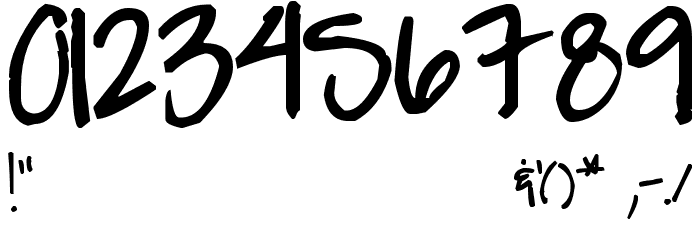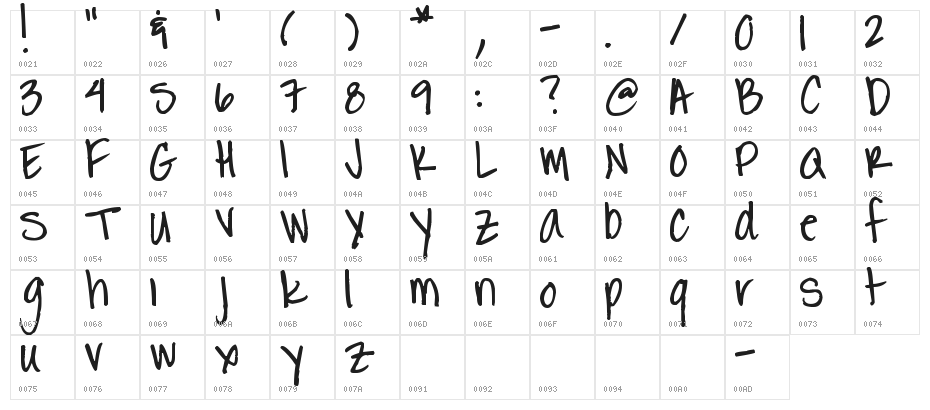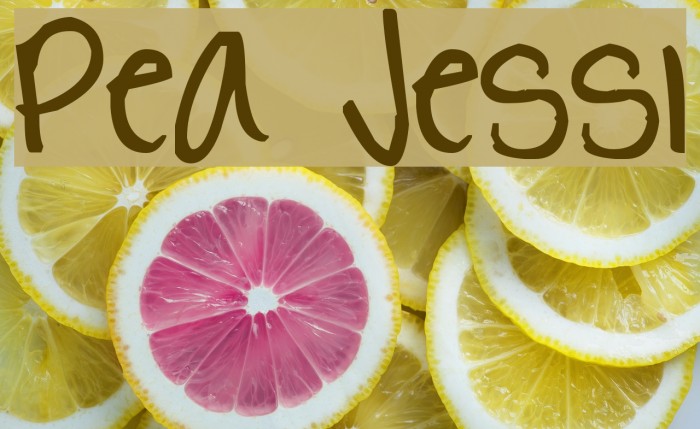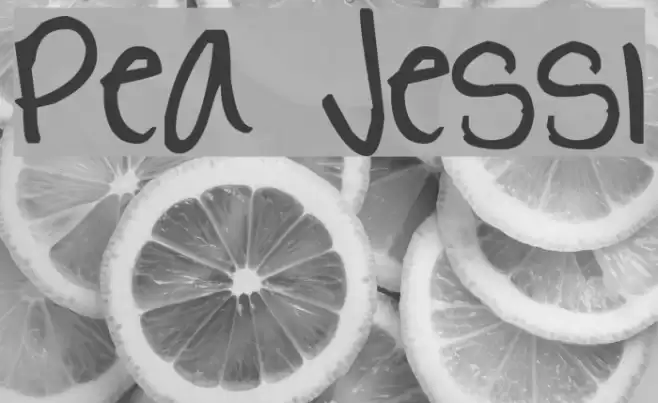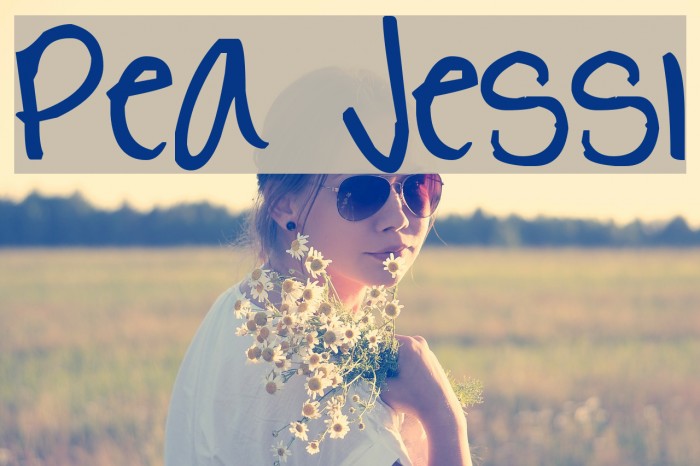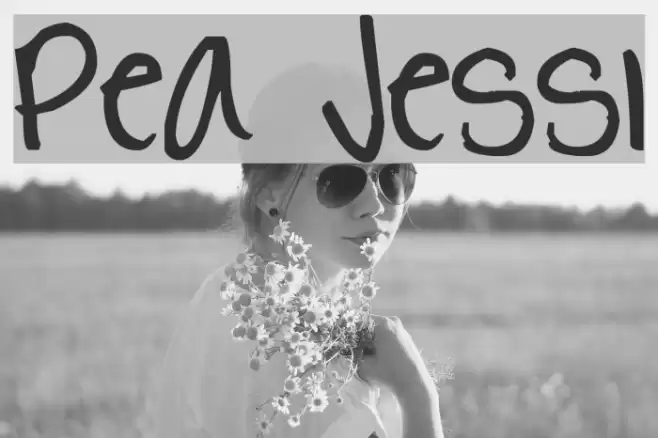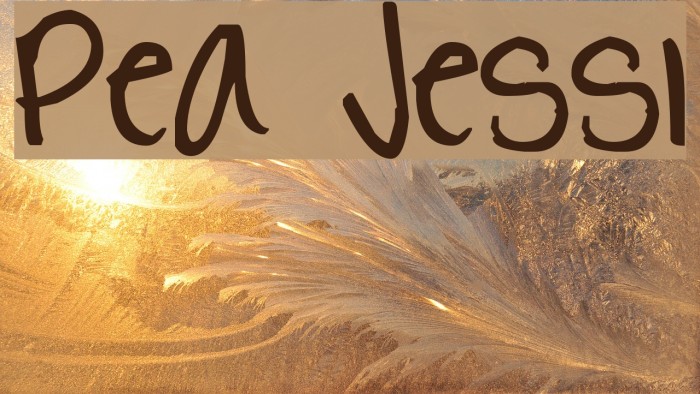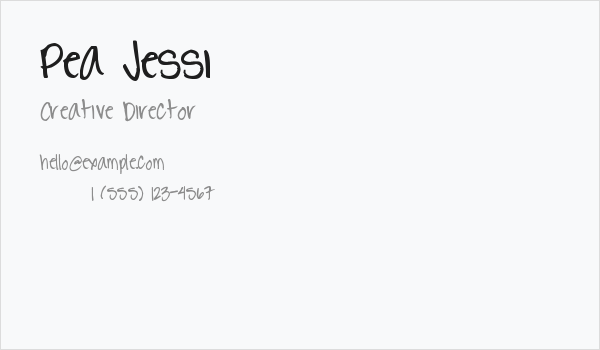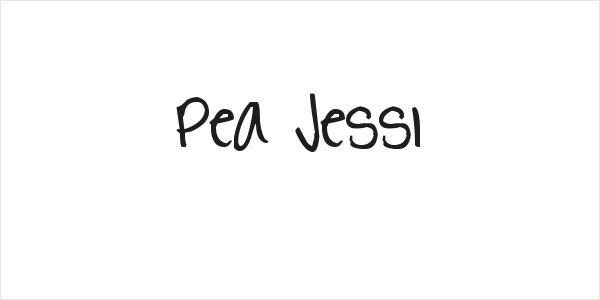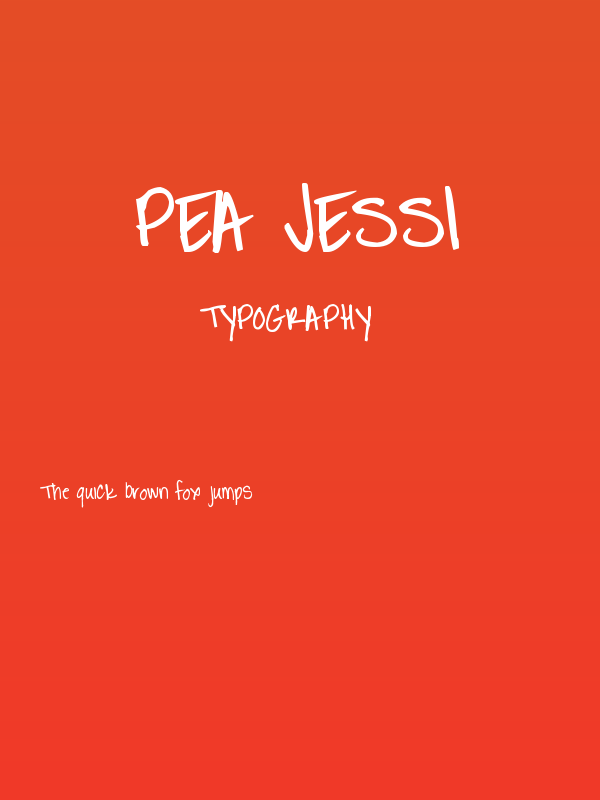
Pea Jessi Font
Pea Jessi Description
This font exudes a playful and casual handwritten style, characterized by its bold and expressive strokes. The letters have a natural, free-flowing appearance, reminiscent of personal notes or informal messages. Each character is uniquely crafted, with slight variations that add to the overall charm and authenticity. The uppercase letters are bold and slightly slanted, while the lowercase letters maintain a consistent flow, enhancing readability. Numbers and special characters follow the same lively style, making this font versatile for various creative projects.
| Proposed Projects | Ideal for greeting cards, personal notes, social media graphics, and informal branding projects. |